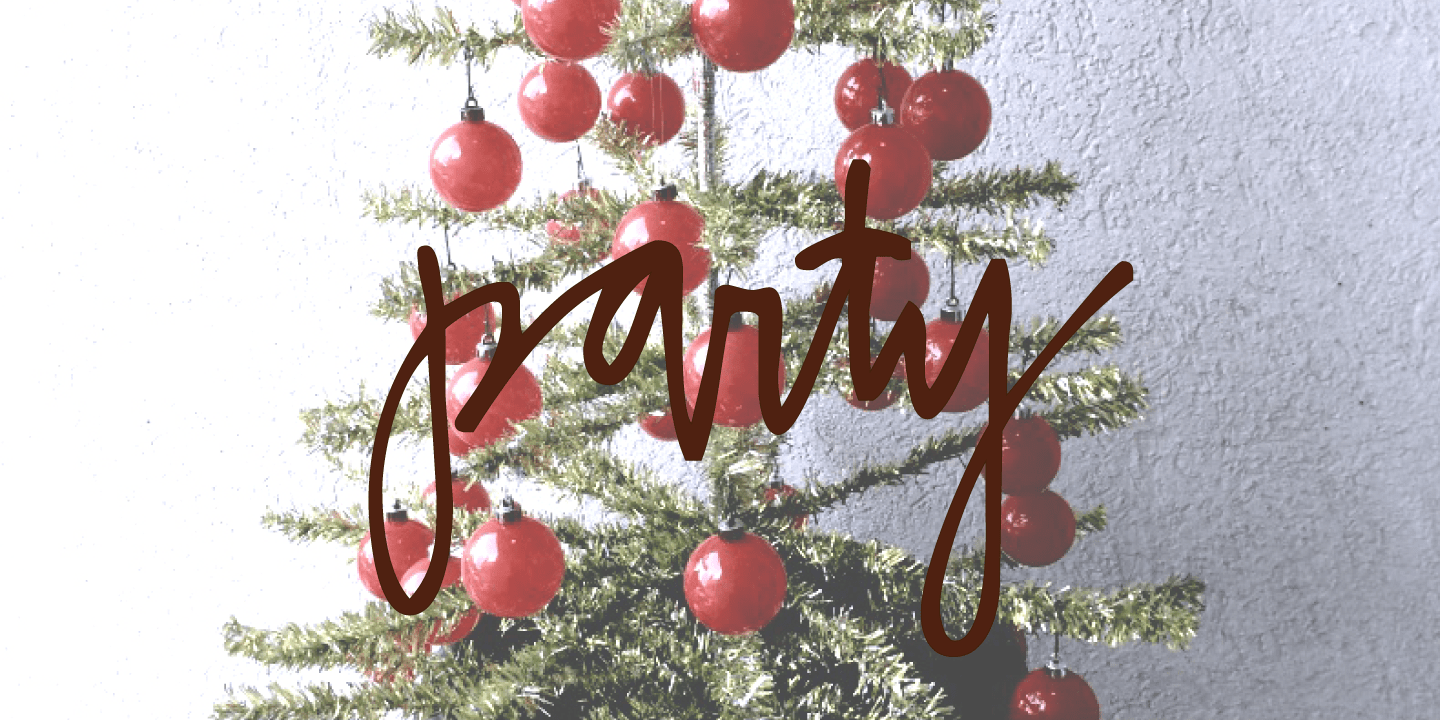
Holiday and Party Words
Font Family by Outside-the-Line
Handwritten or printed holiday and party words for all your flyers and party invitations.
Font includes Happy Birthday, Merry Christmas, Happy Holiday, New Year, Holidaze, Joy, Greetings, Ho, Ho, Ho, Fa, La, La, Glad Tidings, Jingle, Yule tide, Happy Kwanzaa, Happy Hanukkah, Easter, Valentine’s Day, 4th of July, Labor Day, Engagement, Wedding, Baby, Open House, Party, Shower and Event.